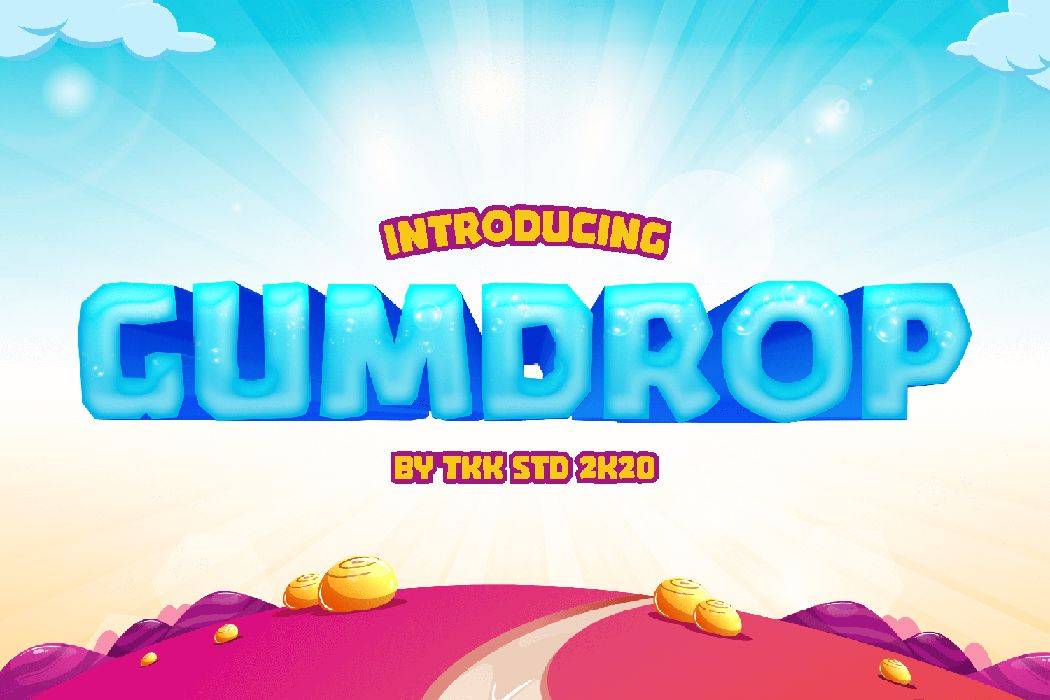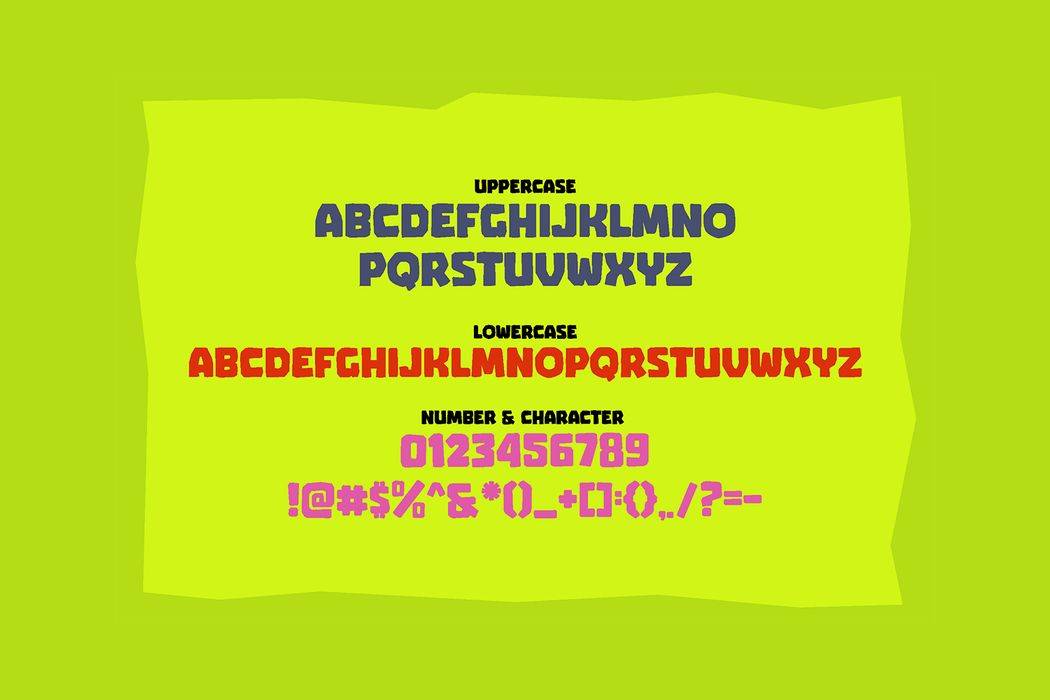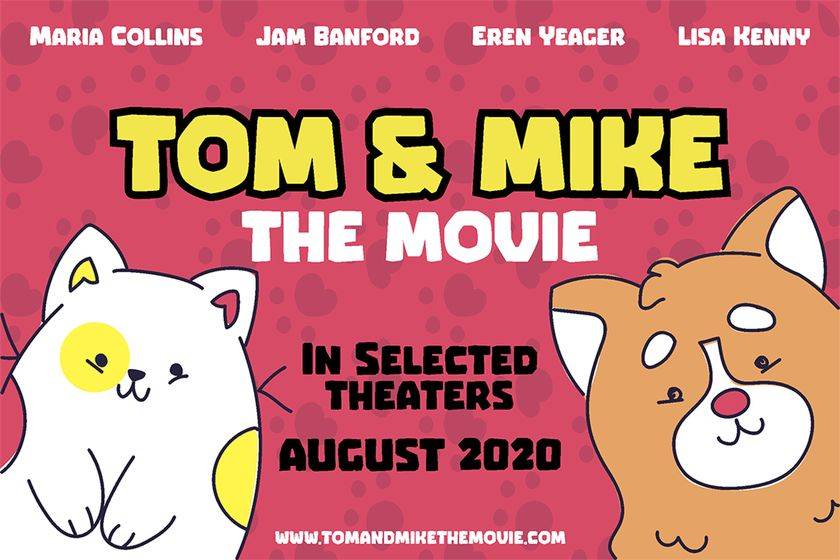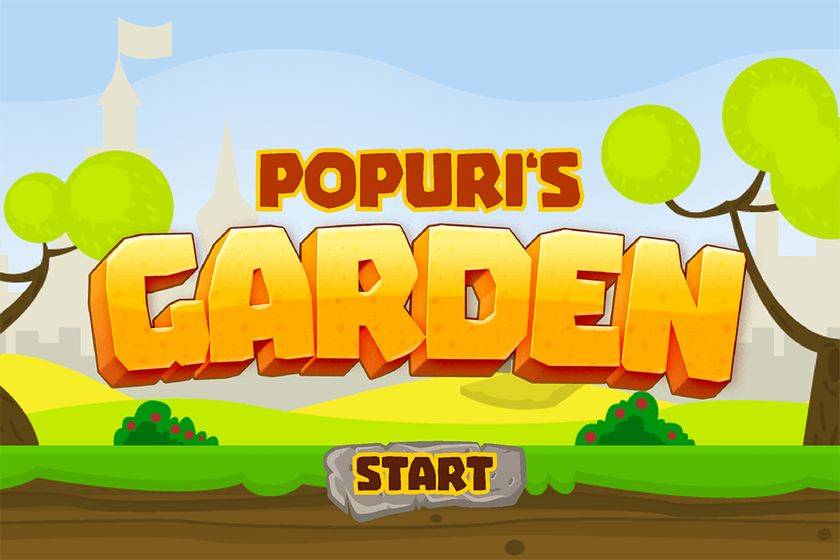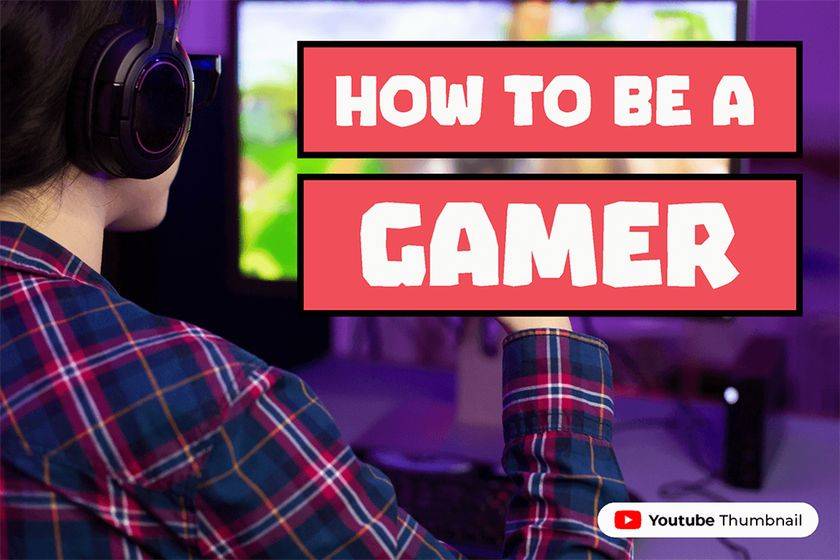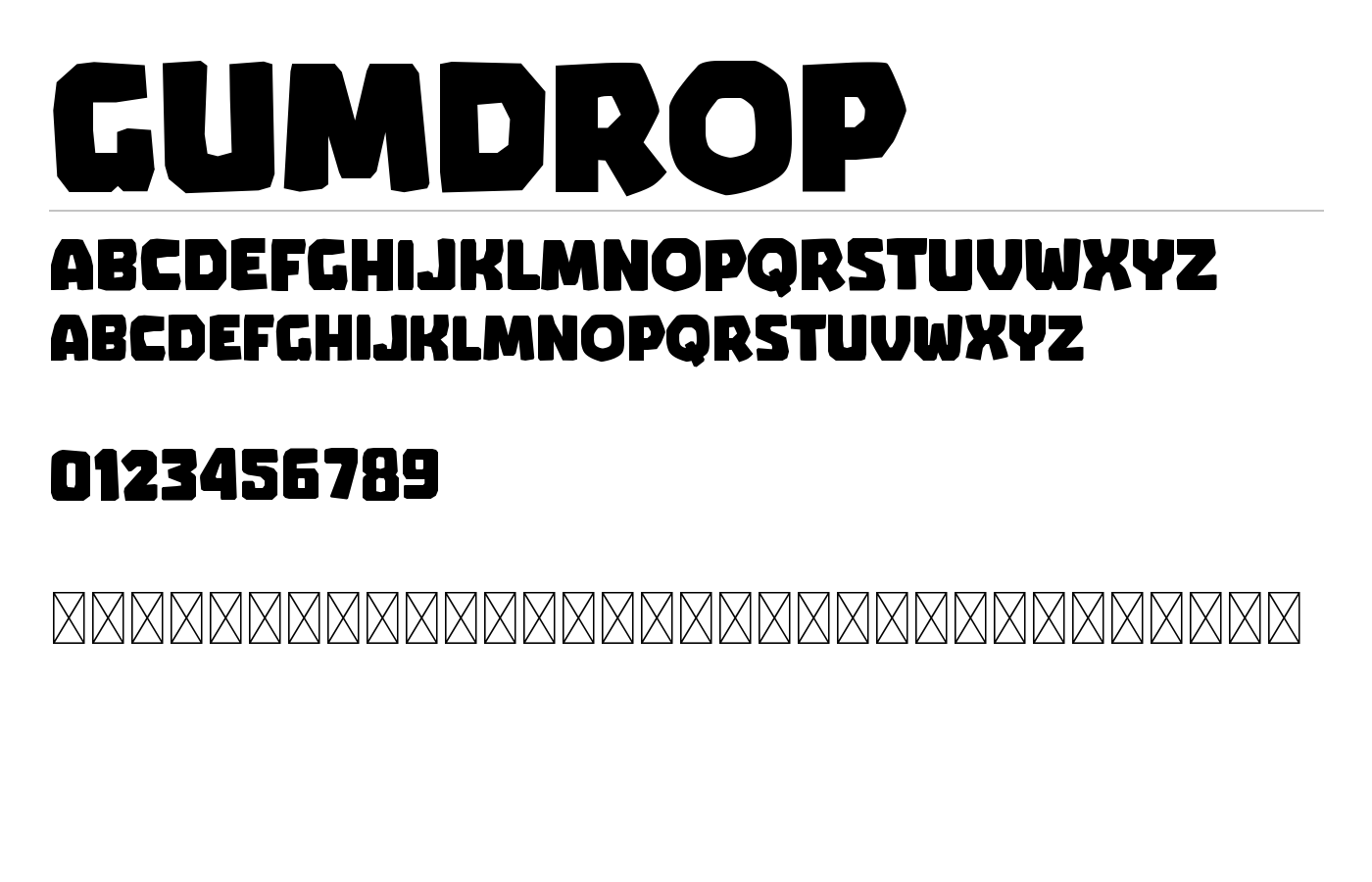
Gumdrop is a bold, chunky sans serif font with a playful, hand-crafted feel created by its irregular, blocky shapes and thick strokes. Its strong presence and unique character make it ideal for eye-catching headlines, logos, and branding that wants to convey fun, approachability, and a slightly quirky personality. This font works best in creative, casual, and informal design contexts where distinctiveness and impact are key.
Gumdrop Font
About Gumdrop Font